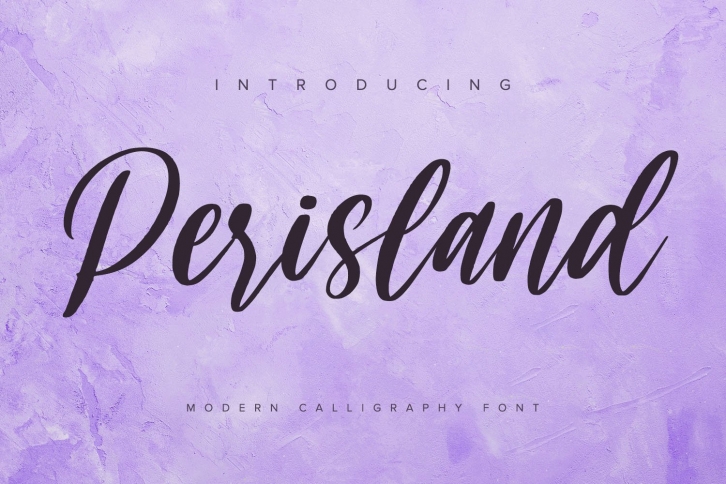
Perisland is a gorgeous font that was realeased on July 28, 2020. The font can be used in many style contexts and design environments. Perfect for invitations, magazines, websites, logos, and more! It was designed by Dita Type and the file size is 6.88 MB. Thanks for checking out this font!